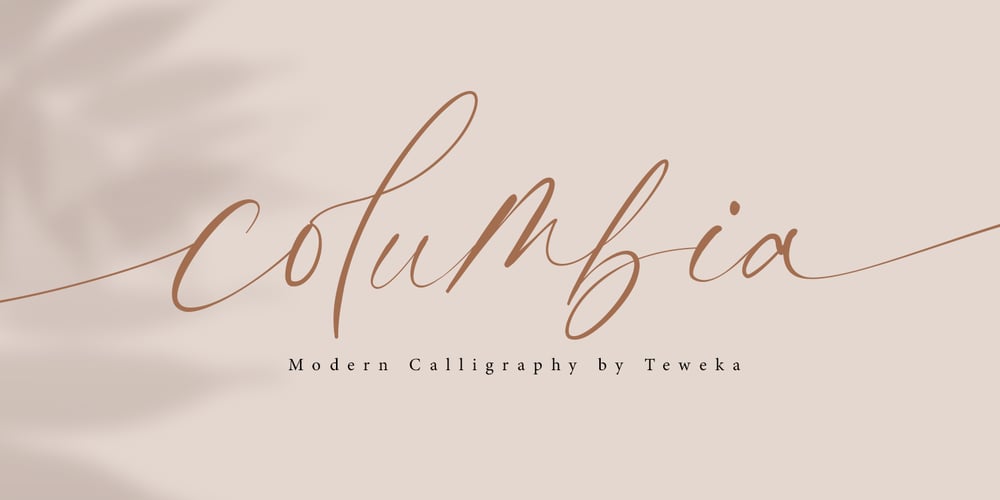
Columbia
Columbia font
Columbia Font Family was designed by Tuanku Muhammad Iqbal and published by Teweka. Columbia contains 1 styles and family package options. columbia is a stylish modern calligraphy font. It is perfect for branding, wedding invites and cards, and label product.columbia includes full set of gorgeous uppercase and lowercase letters, numerals, a large range of punctuation and 33 ligatures. All lowercase letters include beginning and ending swashes, giving realistic hand-lettered style.